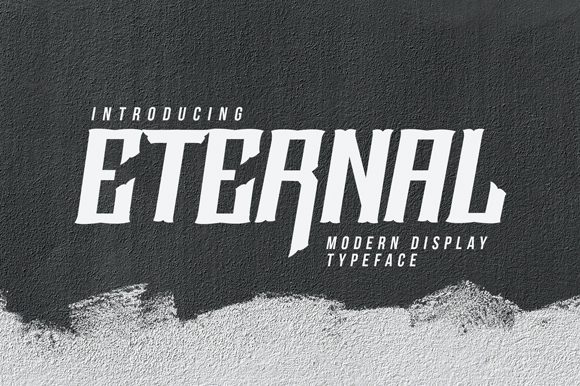
**Fall head over heels in love with Eternal Font, the Bold and Chunky Display Masterpiece!**
Unleash your creativity and let your designs ignite with the captivating charm of Eternal Font. This display font, crafted by the visionary minds at Visuelcolonie, is a typographic marvel designed to add an unforgettable touch to your every creative endeavor.
With its bold and chunky letters, Eternal Font demands attention. It's a font that commands presence, making your words jump off the page and into the hearts of your audience. Imagine your letterheads radiating sophistication, your social media posts bursting with personality, and your designs soaring to new heights—all thanks to the transformative power of Eternal Font.
It's not just a font; it's an artistic expression that speaks volumes about your impeccable taste and unwavering style. Whether you're a seasoned designer or a budding creative, Eternal Font is the perfect companion to elevate your work to its fullest potential.
But don't take our word for it. Immerse yourself in the world of Eternal Font and witness firsthand how it transforms your designs into captivating masterpieces. It's the font that will make your ideas shine brighter, your messages resonate deeper, and your creations stand out from the crowd.
Join the creative revolution today and embrace the boldness and charm of Eternal Font. Let your words dance, your designs soar, and your creations ignite with a touch of typographic magic. Experience the Eternal difference now!